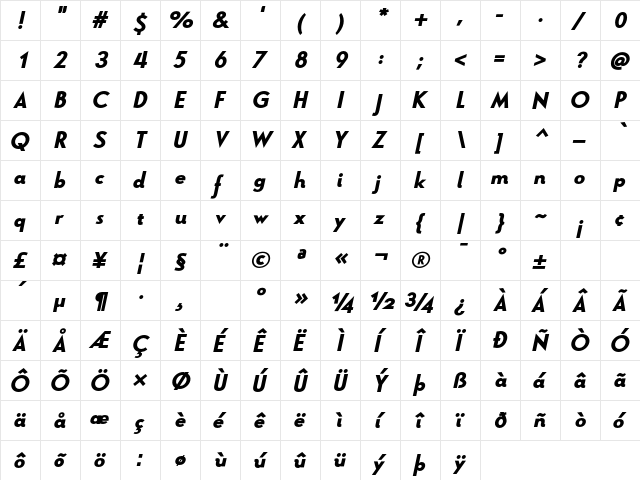
Le Havre Black Italic Font Preview
Le Havre Black Italic Black Italic
Design Context for Le Havre Black Italic Typeface
Le Havre Black Italic is a composed and adaptable typeface that performs quietly and consistently across a wide range of design contexts. Its italic angle brings a sense of urgency and motion to the letterforms.
Pro Tip: Try Le Havre Black Italic for annotation and caption copy alongside an upright companion — the contrast in angle creates a dynamic but ordered typographic system.